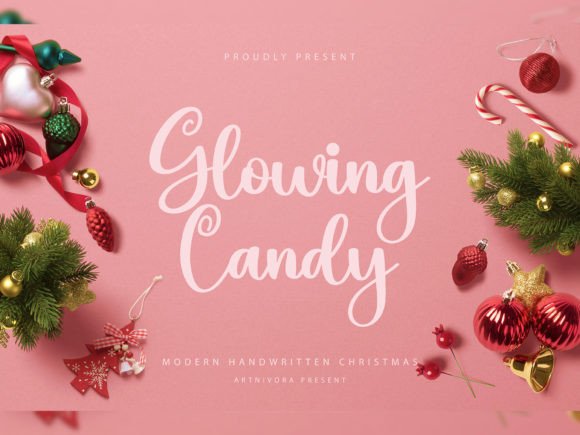
Step into a world of enchanting elegance with Glowing Candy, a captivating script font that illuminates your designs with a touch of magic. Handcrafted with meticulous care, this exquisite font family embodies the essence of timeless beauty and creativity.
Immerse yourself in the flowing curves and delicate swashes of Glowing Candy, a font that dances across your screen like a shimmering constellation. Its graceful lines and playful personality add a touch of whimsy and charm to any project, making it the perfect choice for those seeking a touch of distinction.
Whether you're a seasoned designer or just starting your creative journey, Glowing Candy is your secret weapon to elevate your designs to new heights. Its versatility knows no bounds, effortlessly adapting to logos, branding, invitations, social media graphics, and more. Let your imagination soar and let Glowing Candy transform your words into works of art.
With Glowing Candy, you'll discover a font that's as versatile as it is visually stunning. Its ability to seamlessly blend with a myriad of design styles makes it a must-have for any creative arsenal. From elegant wedding invitations to playful social media posts, Glowing Candy effortlessly elevates your projects with a touch of sophistication.
Unleash the power of Glowing Candy today and embark on a creative journey like no other. Let your designs shine brighter than a thousand stars, captivating your audience with a font that embodies grace, elegance, and boundless creativity. Embrace the magic of Glowing Candy and watch your designs come alive with a touch of enchantment.